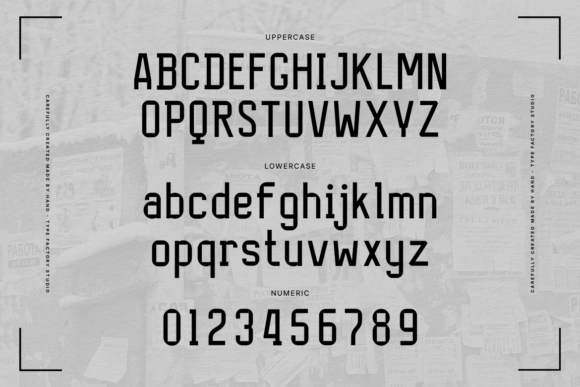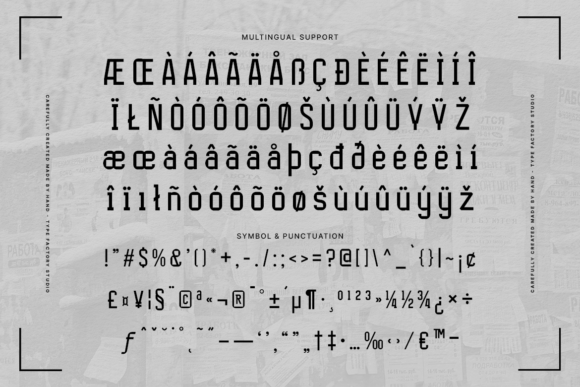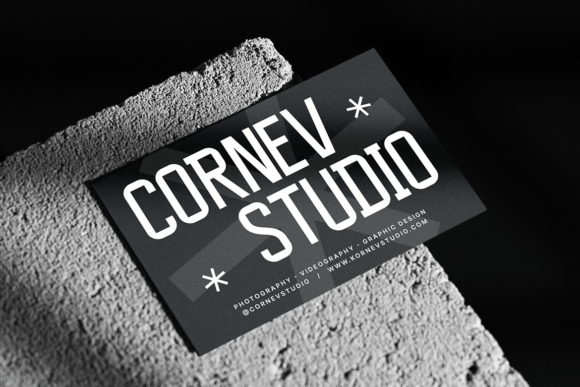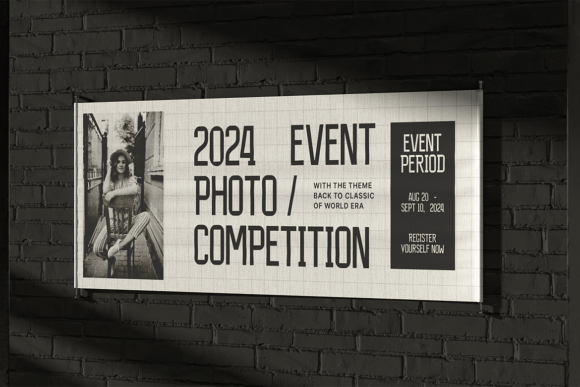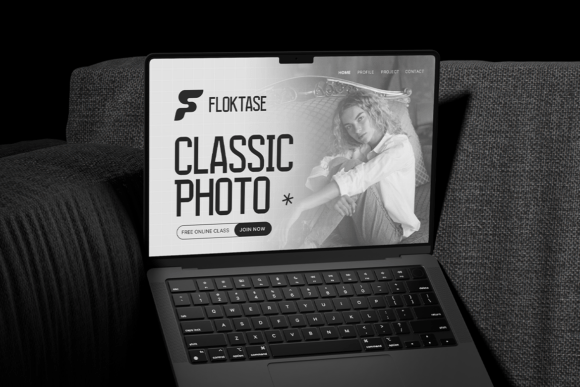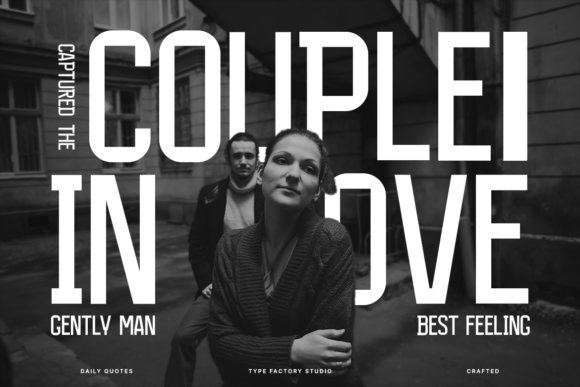
Introduction to Mionet Font
Mionet is a monospaced sans serif typeface built with consistent character width and clean geometric construction.
Each letter is designed within a fixed-width system, creating a balanced and structured visual rhythm across headlines and layouts The typeface works well for branding projects, editorial compositions, posters, website headers, digital interfaces, and grid-based design systems.
Key Features of Mionet Font